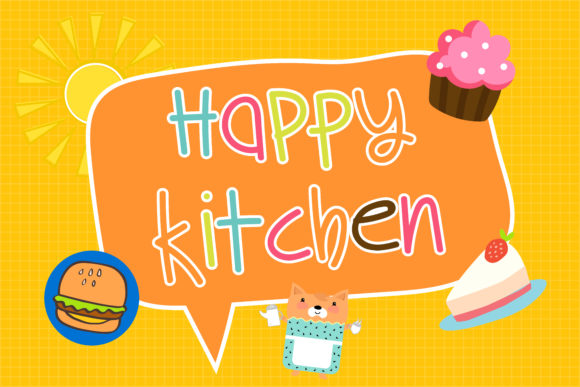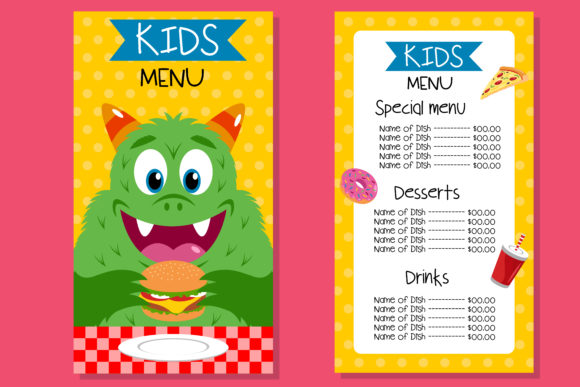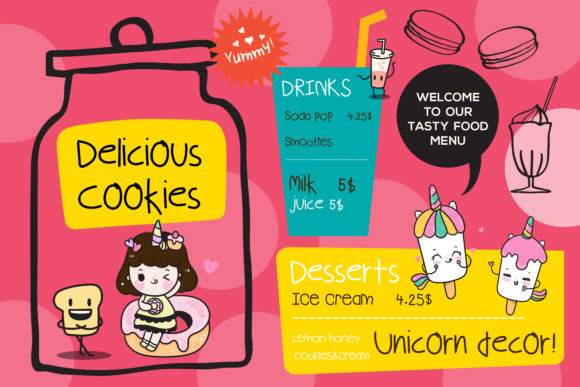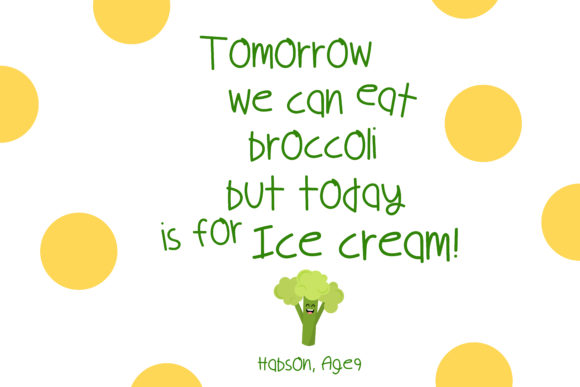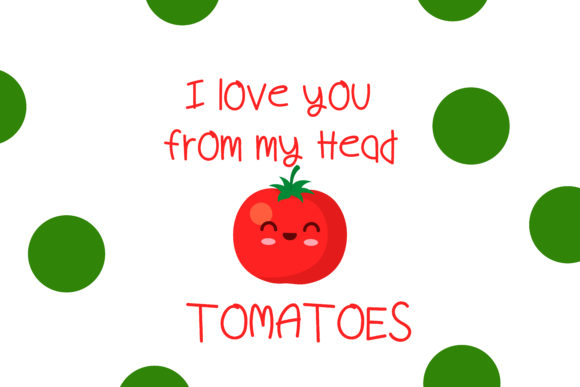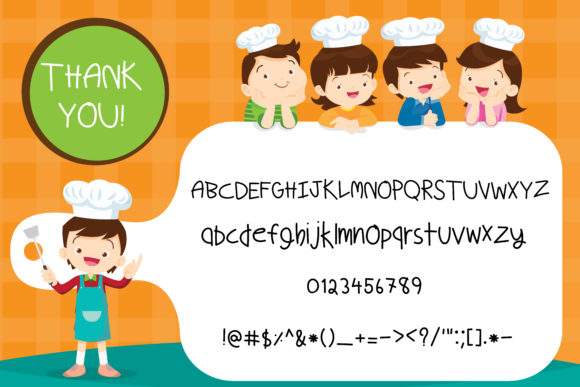
Introduction to Kids Menu Font
Do you remember the moment when your child’s eyes lit up with excitement as they created their first art project? Maybe it was a colorful drawing, a handprint masterpiece, or a scribbled poem about their favorite cartoon character. Those moments are priceless, and as a designer, you want to capture that same magic in your creative projects.
That’s where the Kids Menu Font comes in – a delightful, handwritten font that embodies the fun, quirkiness, and authenticity of childhood. With its childlike playfulness, this design resource is perfect for brightening up any kids and school project. Whether you’re working on a logo, a flyer, or a social media graphic, the Kids Menu Font is sure to add a touch of whimsy and personality to your design.
Key Features of Kids Menu Font
- High-quality, playful design ideal for a creative project targeting children.
- Includes a range of characters and glyphs, ensuring comprehensive coverage for various language requirements.
- Unique, child-friendly characters and symbols make it an excellent choice for kids’ menus, educational materials, and children’s products.
Honest Review: Kids Menu Font
I recently stumbled upon the Kids Menu Font, and I must say it’s a delightful addition to any creative project. The font is perfect for designing kids’ menus, as it’s both playful and easy to read. I love the variety of styles and the fact that it’s a high-quality design resource.
- Playful and child-friendly design
- Some of the styles may be a bit too childish for certain designs
- Not as many variations as I would have liked
Overall, I’m really impressed with the Kids Menu Font. It’s a great design resource for anyone working on a project that requires a fun and playful tone. I would definitely recommend it to my fellow designers.
The Kids Menu Font is ideal for creating menus, flyers, and other marketing materials for kids-related businesses, such as restaurants, amusement parks, and educational institutions.